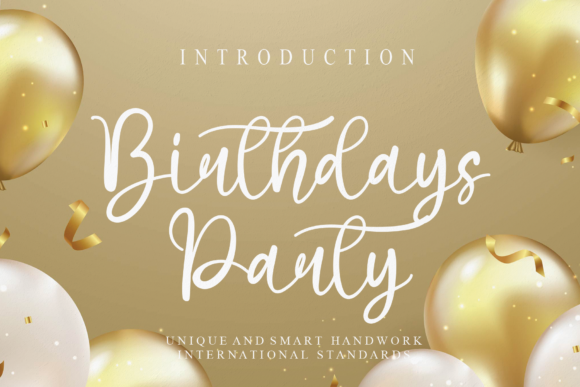
Embark on a typographic journey with Birthdays Party Font, a script font family that evokes the joy and exuberance of life's special moments. Designed by the ingenious minds at Misterletter.co, this font weaves a tapestry of elegance and charm, leaving an everlasting impression on your creative endeavors.
Unleash your creativity and let Birthdays Party Font dance across your designs, adding a touch of whimsy and sophistication. Picture the beauty of wedding place cards adorned with this font, their delicate strokes guiding your guests to their seats amidst an atmosphere of love and celebration.
Birthdays Party Font is more than just a font; it's an experience, a way to express your emotions and add a personal touch to your projects. Whether you're creating invitations, greeting cards, or social media graphics, this font will elevate your words and make them shine.
Immerse yourself in the world of Birthdays Party Font and discover the endless possibilities it holds. Let your imagination soar as you craft designs that exude elegance, warmth, and a dash of playfulness. From heartfelt messages to celebratory announcements, this font will become your trusted companion, transforming your words into works of art.
With its light and airy strokes, Birthdays Party Font brings a sense of lightness and joy to your creations. It's the perfect choice for adding a touch of magic to your projects, whether you're a seasoned designer or just starting.